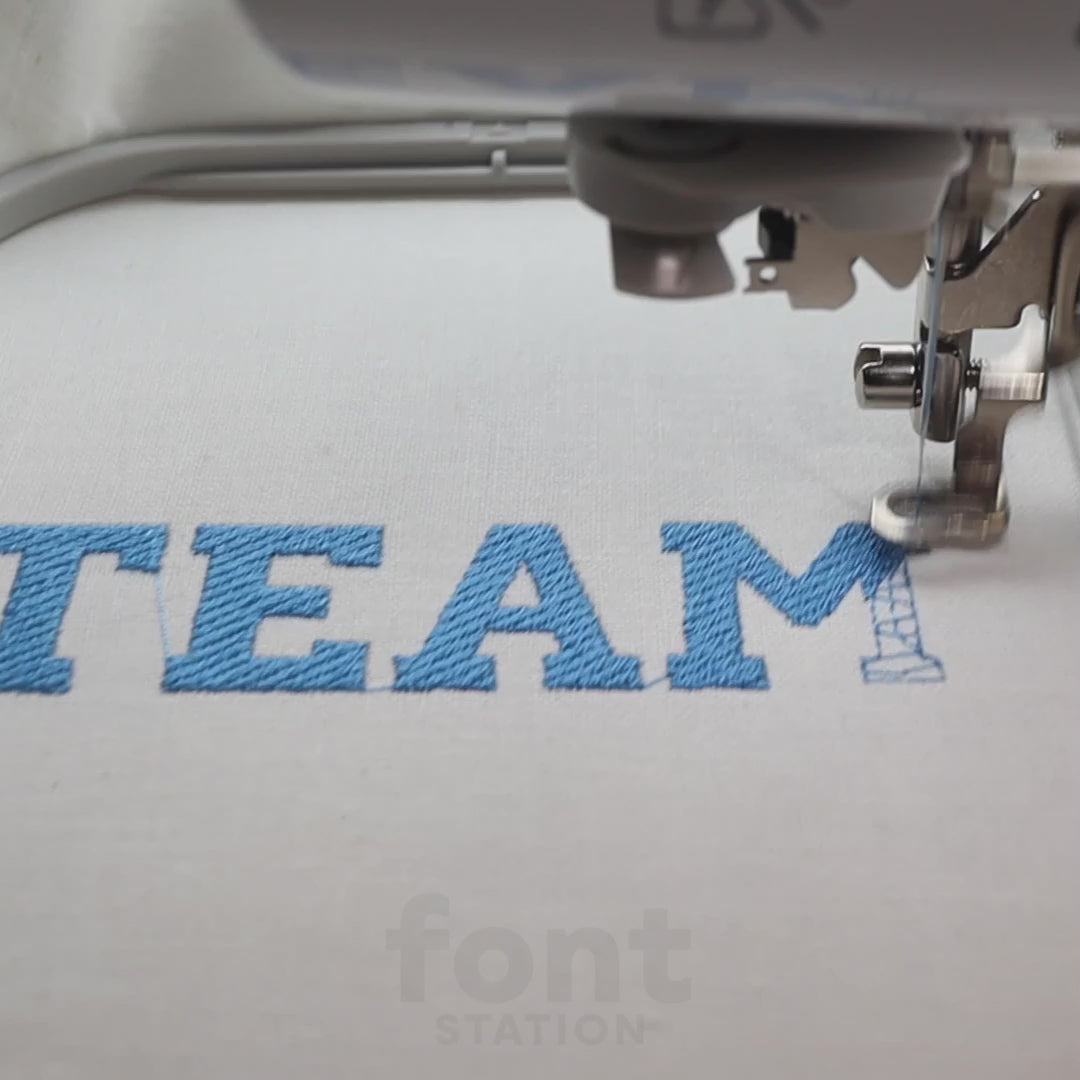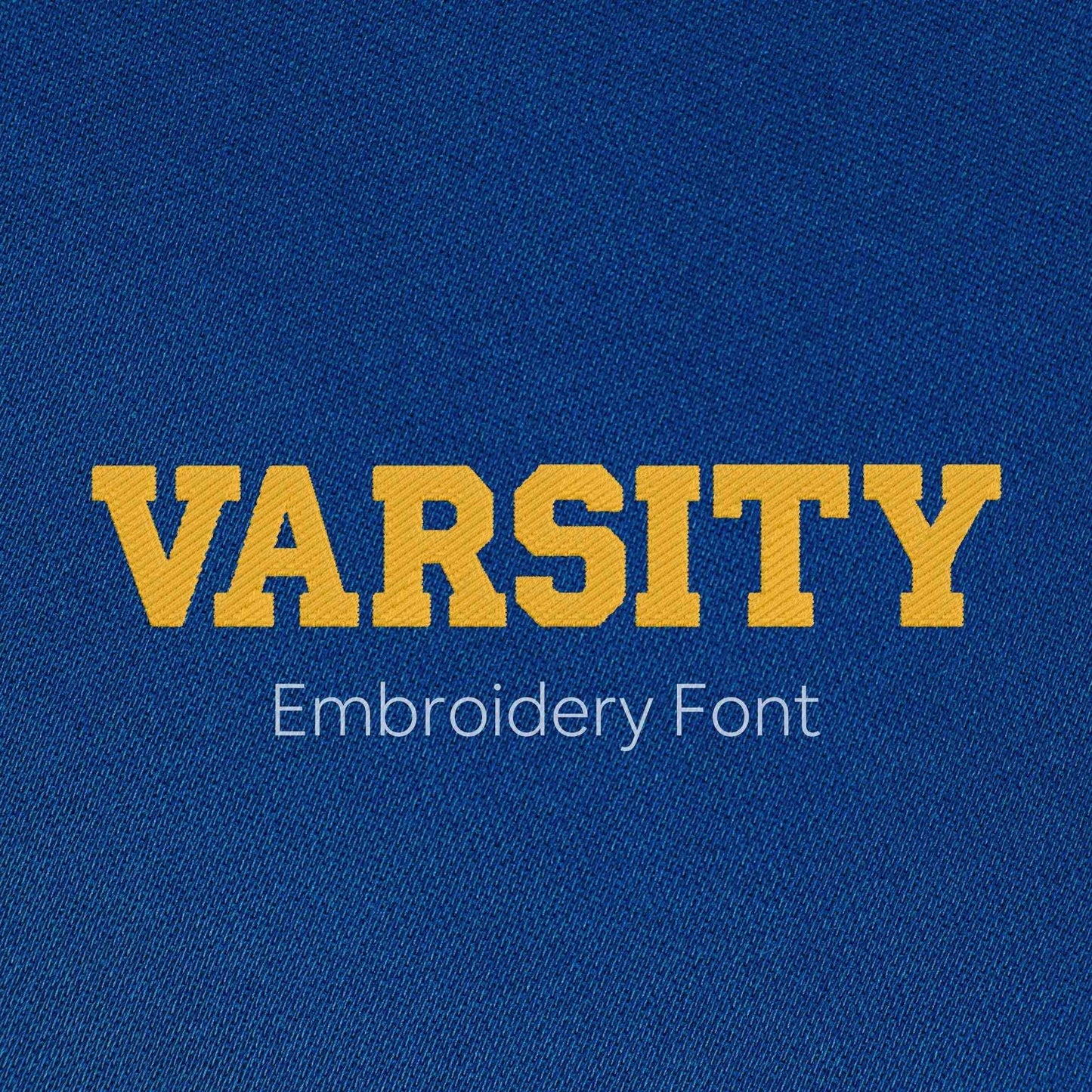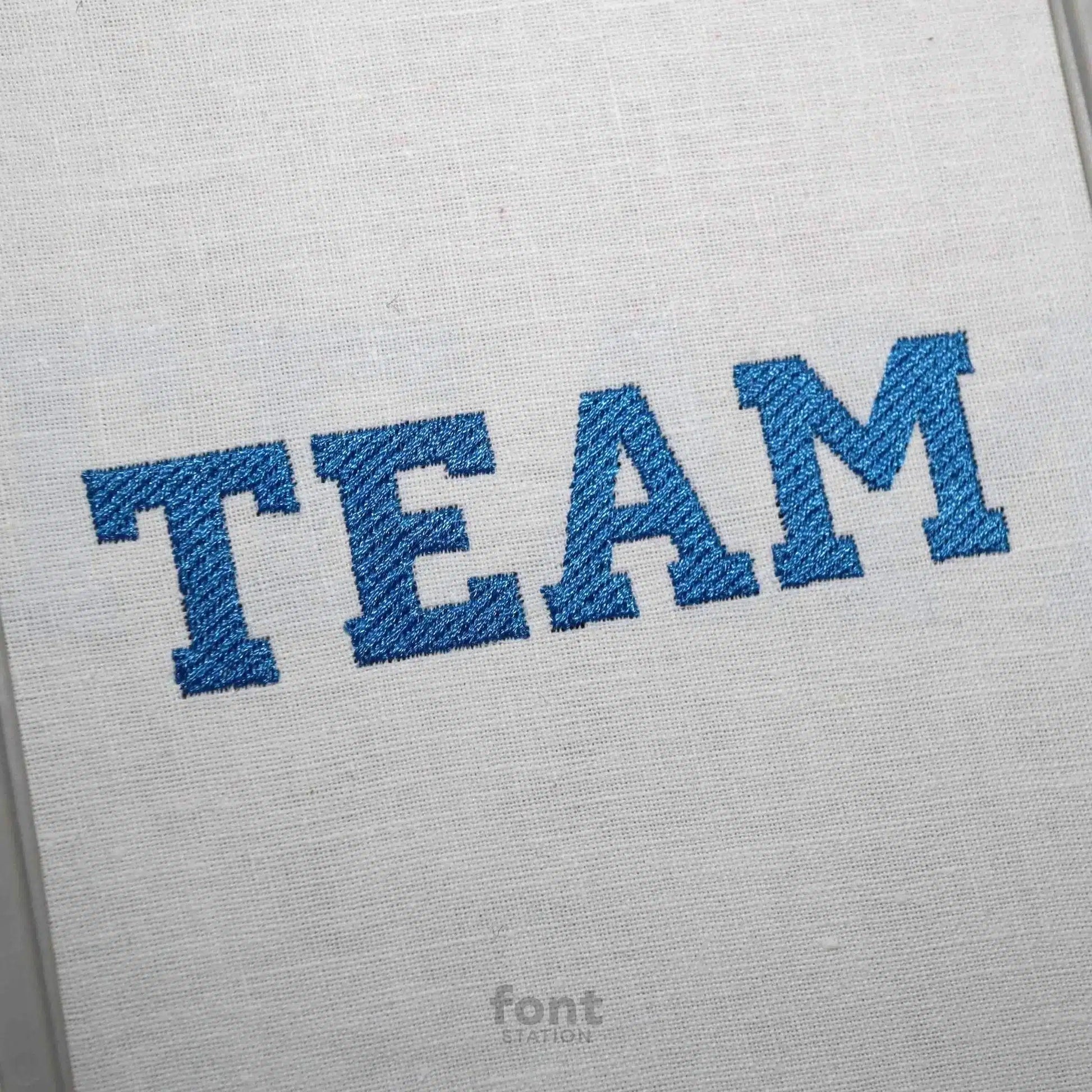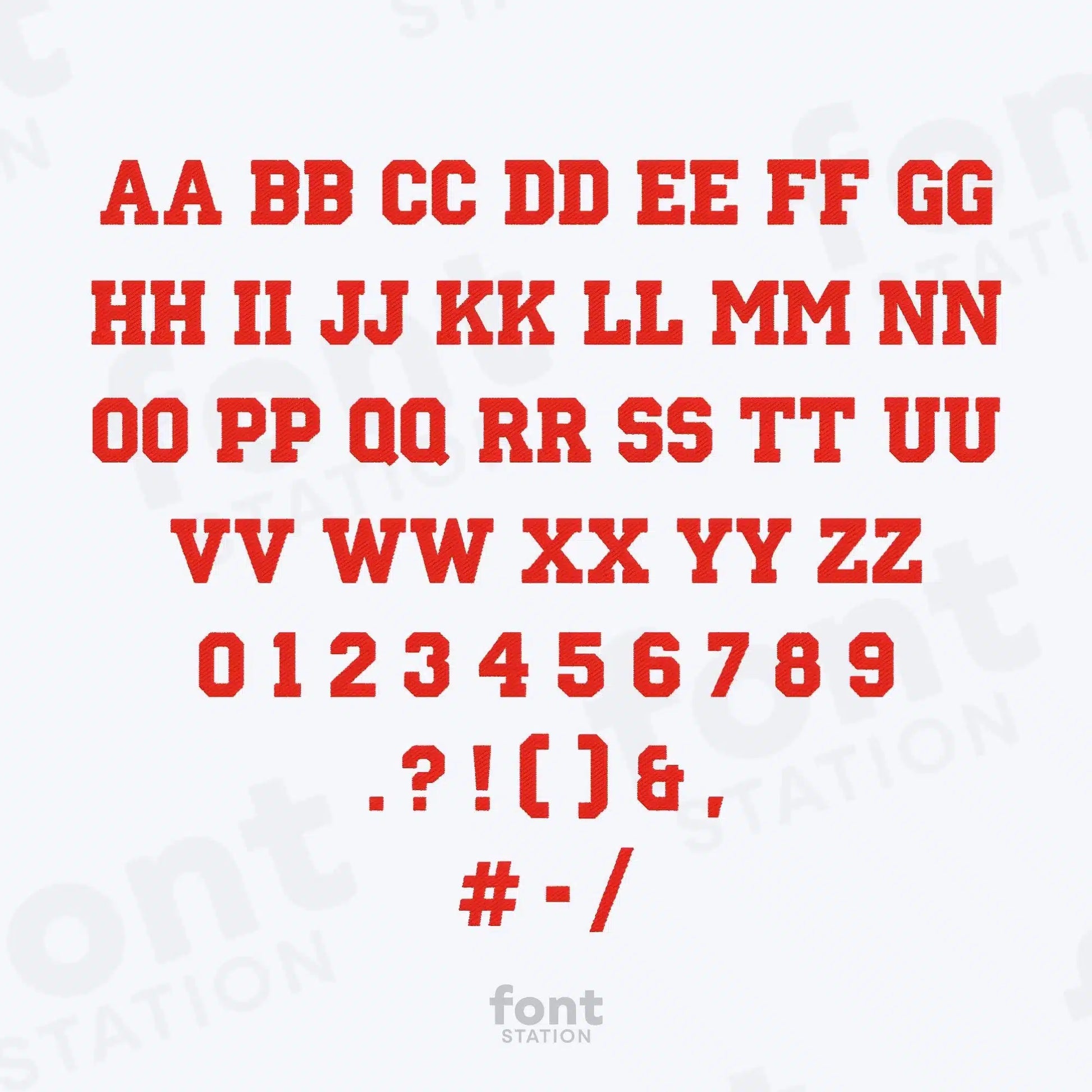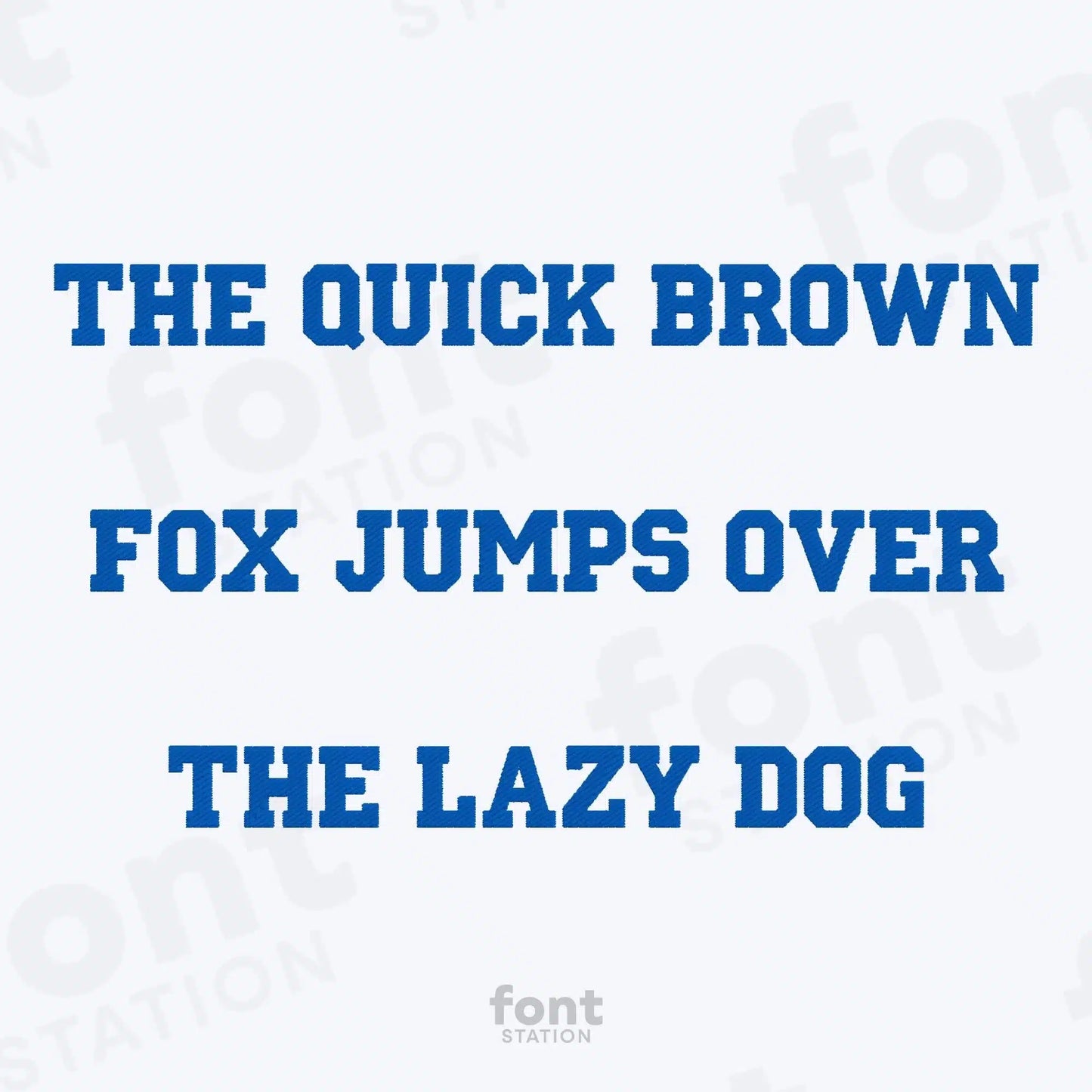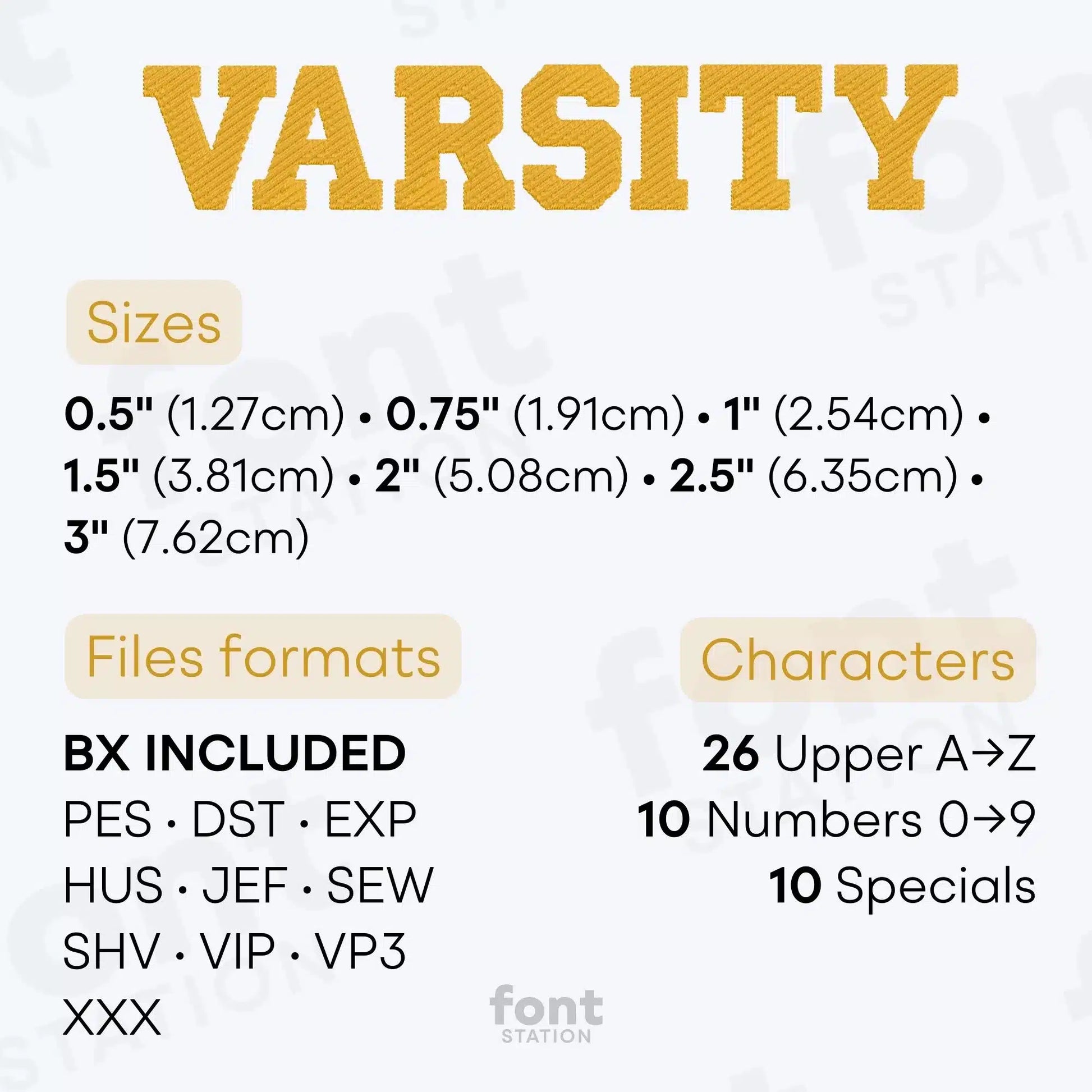
Varsity Embroidery Font
Our Varsity embroidery font is a bold, athletic-style alphabet that's perfect for sports-themed projects. Add classic team spirit to your creations with these machine-ready letters, designed for clean stitching on a variety of fabrics.
About the Varsity Embroidery Font
Bring bold team spirit to your designs with our Varsity embroidery font!
Give your embroidery projects a classic athletic look with our Varsity embroidery font. Professionally digitized for clean, high-quality stitching on most fabrics, this bold, block-style alphabet is perfect for sportswear, varsity jackets, and school-themed designs. Customers love the strong, sporty vibe, and we can't wait to see what you create with it!
- Professional Quality:Β Each character has been expertly digitized to ensure clean, crisp stitching and excellent embroidery results.
- Versatility:Β Our font is suitable for a wide range of embroidery projects, from apparel and accessories to home decor and gifts.
I used this font to embroider on towels. I did have to do 2 passes for the towel not to see though. But looked great after.
Nice font. Turned out great on some t-shirts!
this design stitched out perfectly
This font stitched out nicely!
I needed a new Varsity font for a rush order and the one I had was stitching horribly. This Varsity font from Fontstation worked great!!!
Was perfect for my project.
The letters stitched out great! ππ»
Font works well and is a pretty font
I only needed a single letter, actually. But it stitched out so nicely. I am glad to have this for future projects.
Stitched out perfectly for the project I was working on. Thank you.
Was just what I was looking for
Perfect stitching. No issues and looks just like varsity letterman.
Perfekt gestickt, ich bin sehr zufrieden mit dem Design und dem Endergebnis. Kann ich nur empfehlen.
When I embroidered the letters were flawed
Stitched out great, would recommend!